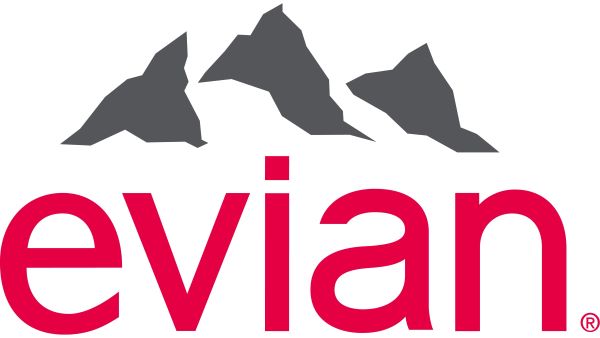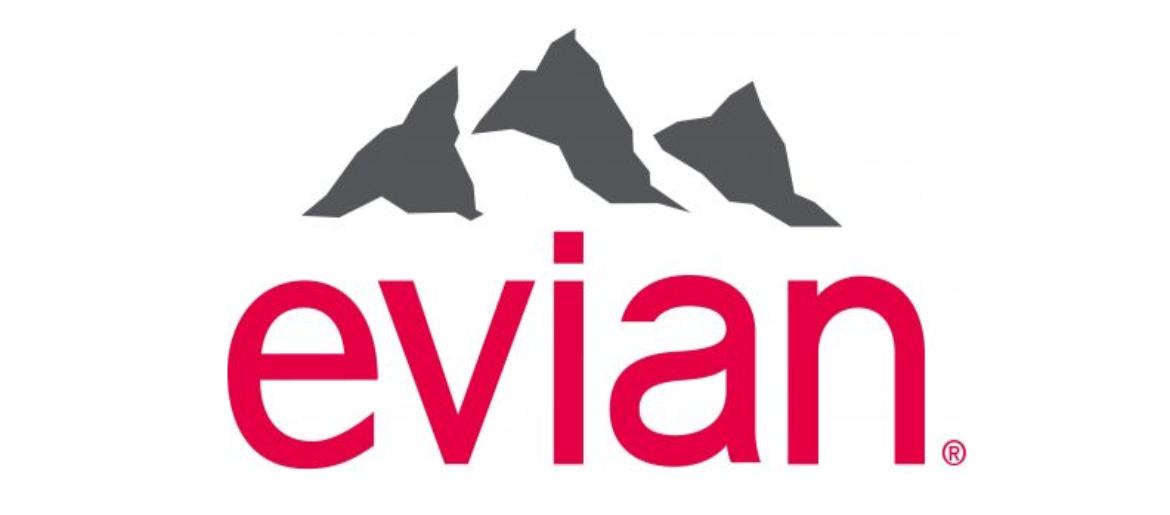
evian Font
What Font is Used in the evian Logo?
The Evian font reflects the brand’s clean, refreshing, and natural identity, perfectly aligned with the purity of its mineral water. The font used in the Evian logo is most likely Frutiger Pro 55 Roman, a humanist sans-serif typeface designed by Adrian Frutiger. This typeface is known for its clarity and balanced proportions, which mirror the elegance and simplicity of the Evian brand. Its soft curves and modern appeal make it ideal for conveying trust and freshness. However, if you’re looking to recreate the Evian style in your own design projects, we’ve found a similar alternative font available for free that captures the same smooth and sophisticated feel.
About Evian
Founded in 1829, Evian is a world-famous French brand of mineral water sourced from the French Alps. Renowned for its natural purity and premium image, Evian has become synonymous with health, wellness, and luxury hydration across the globe.